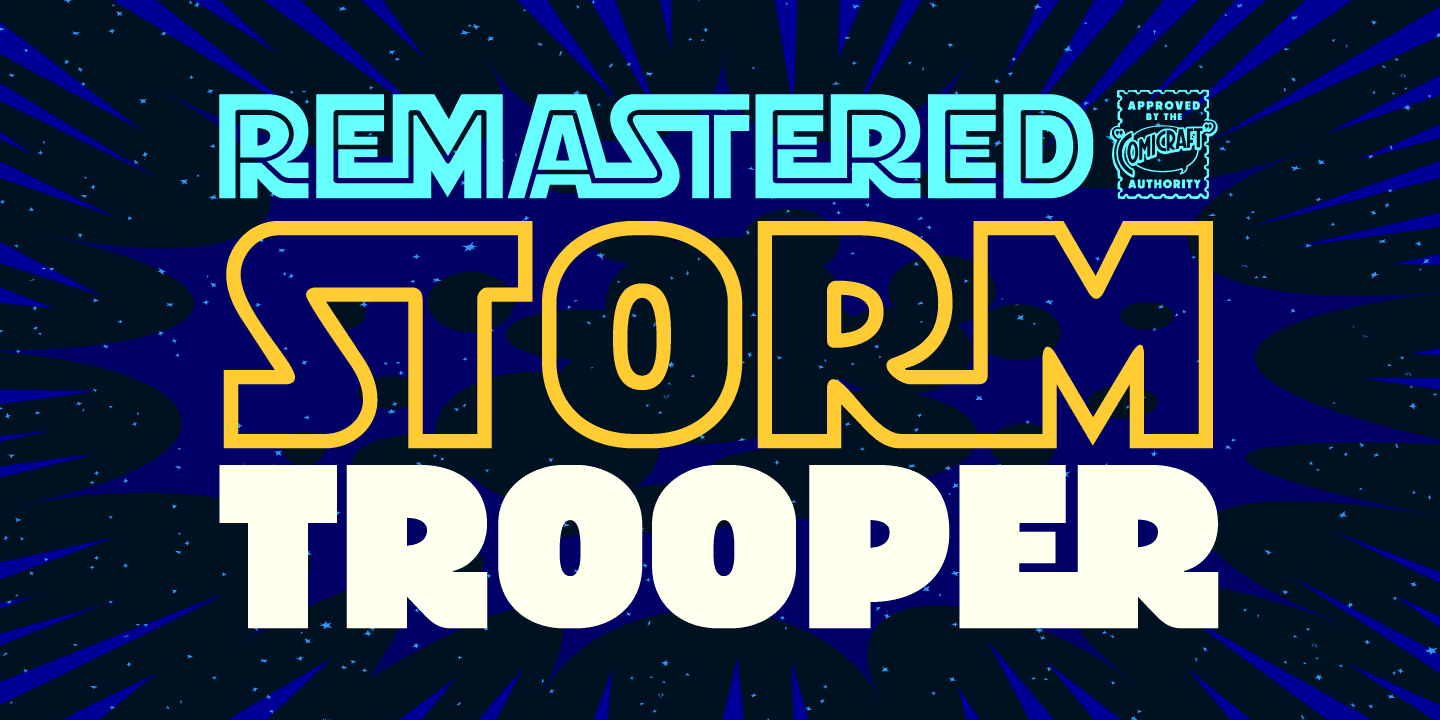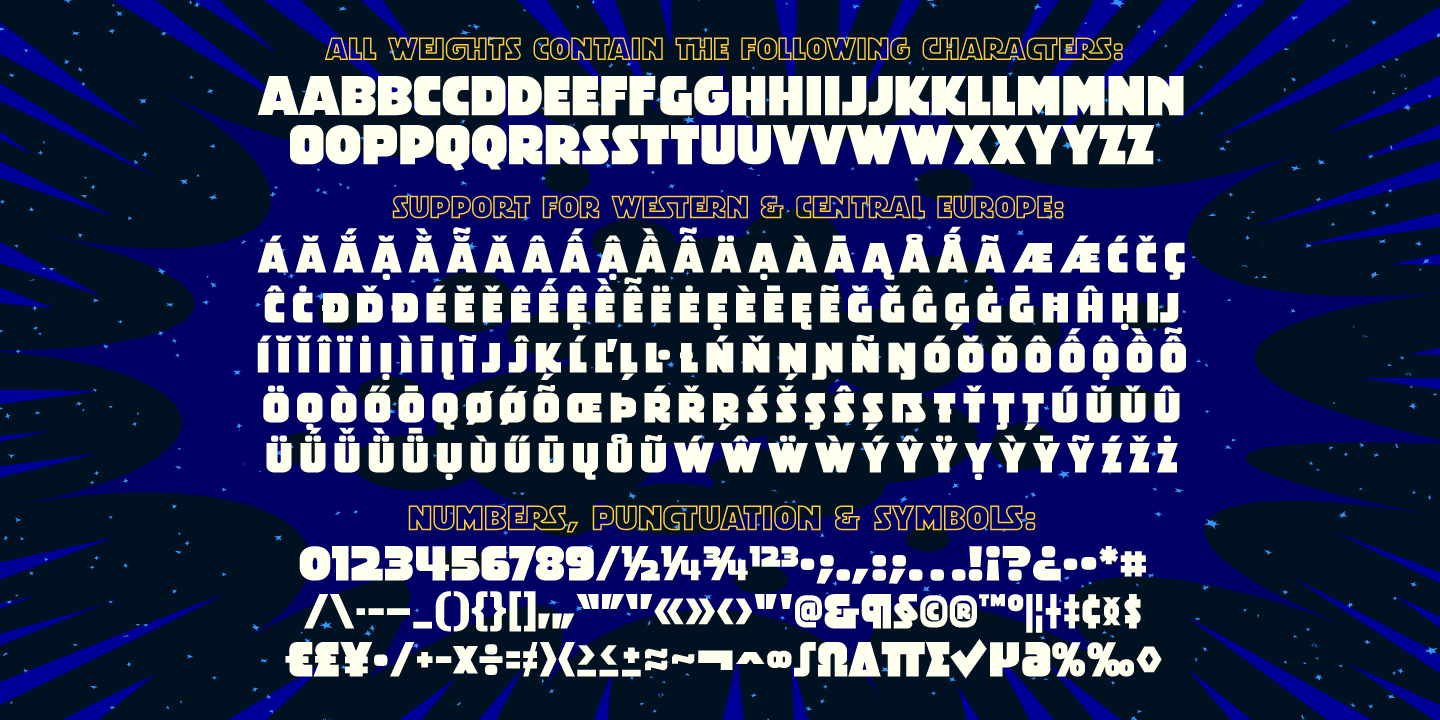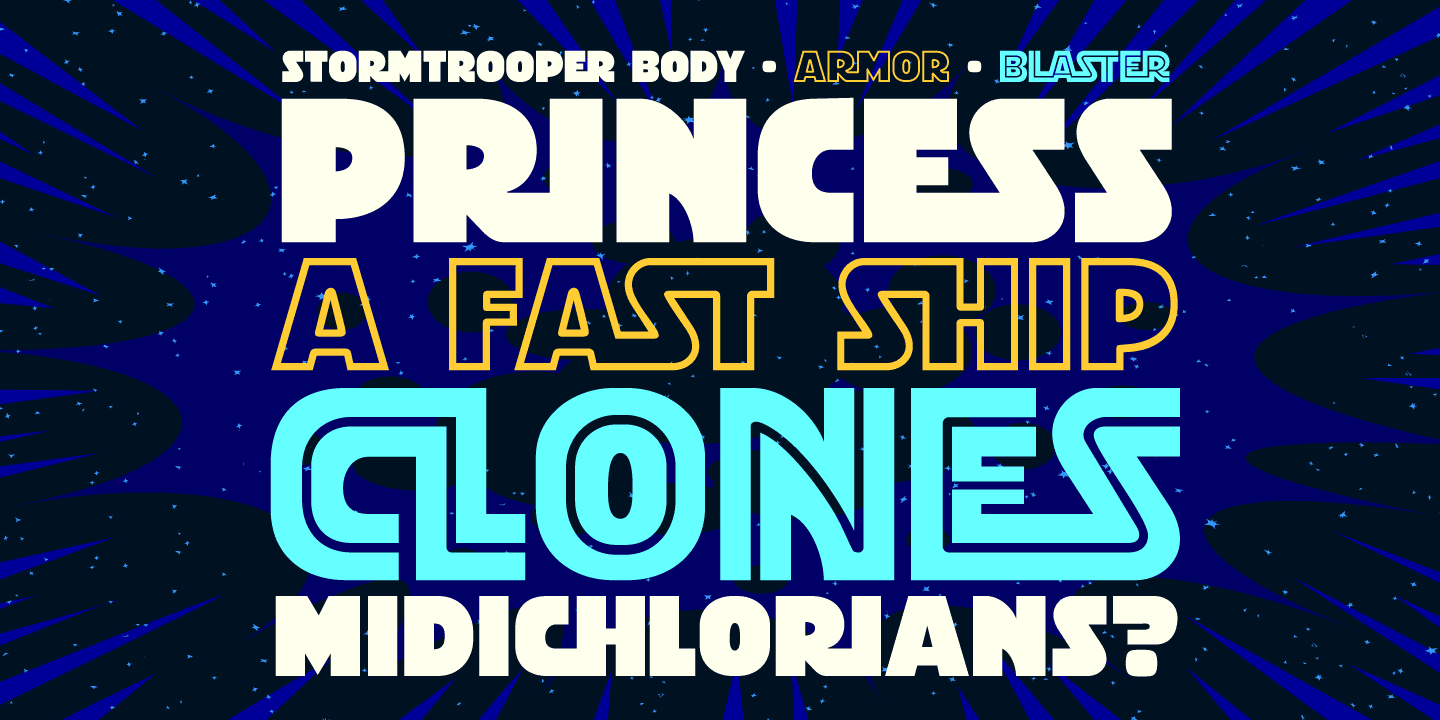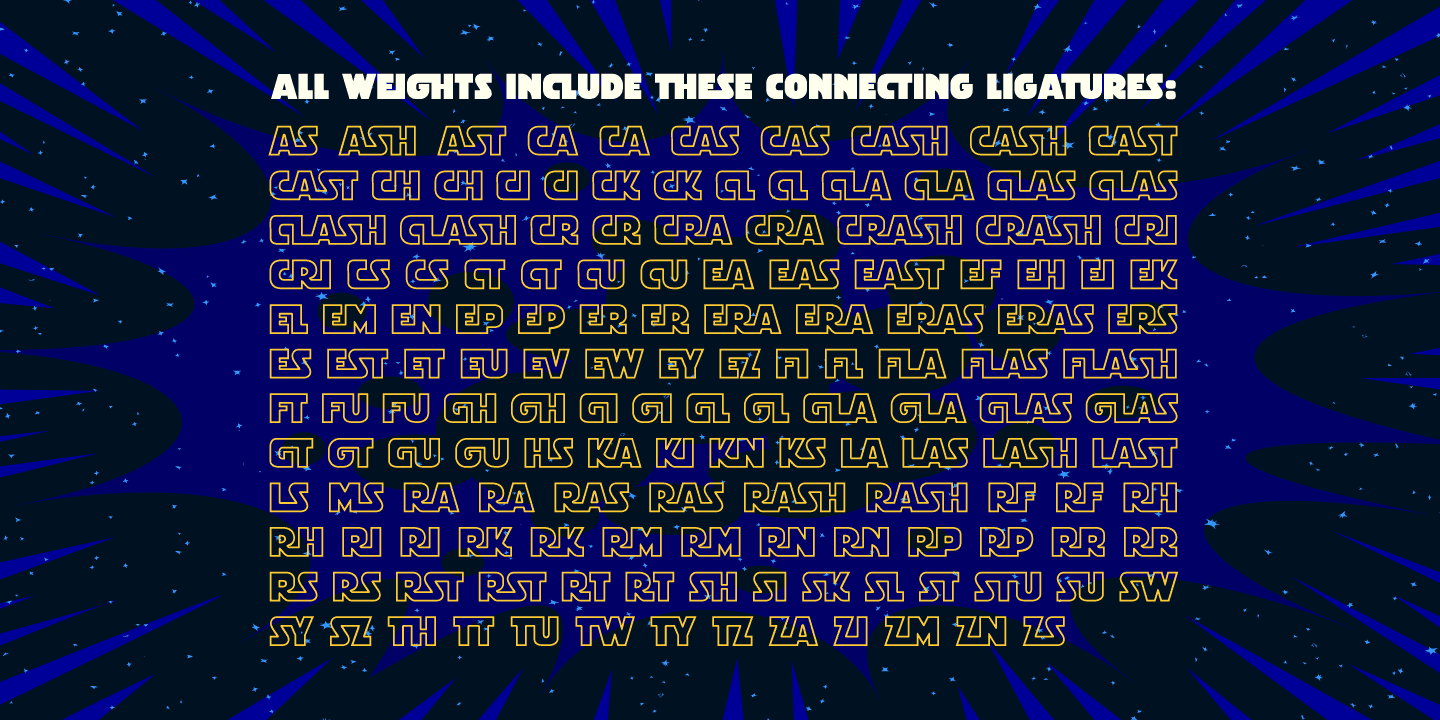
Stormtrooper
Font Family by Comicraft Fonts
We've gathered the old characters together, and added a bunch of young new hotshots, to create the long-anticipated sequel to our STORMTROOPER font!
The digitally remastered Special Edition STORMTROOPER font includes two new weights -- outlined ARMOR and inlined BLASTER -- each containing more than 150 autoconnecting letter combos*. Yes, you'd have to be crazy to attempt a font like this; our man JG certainly has courage...